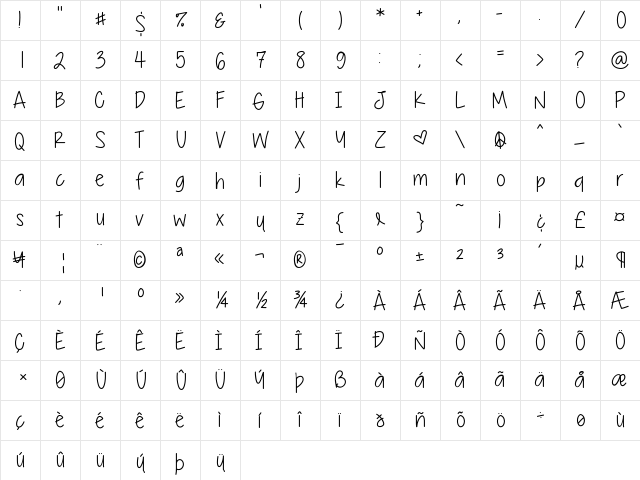
Runningforacause Medium Free Font
Runningforacause Medium
Complete Runningforacause Medium glyph index. Displaying only characters natively supported by Runningforacause Medium font.
Design Context for Runningforacause
Runningforacause is a composed and adaptable typeface that performs quietly and consistently across a wide range of design contexts.